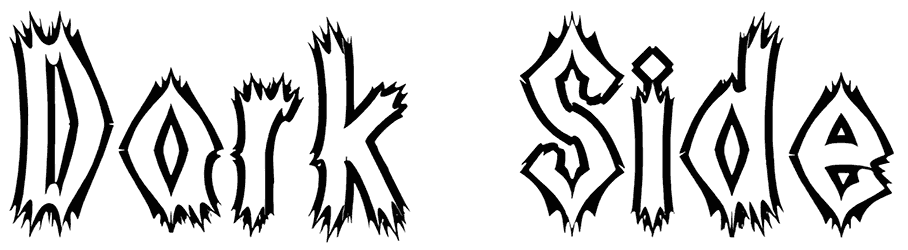
Dark Side Font
Designed byEnigma
Dark Side is an outstanding horror font that comes with an outlined style and brings a sense of fear, momentum, eeriness, or jauntiness to all of your graphic content.